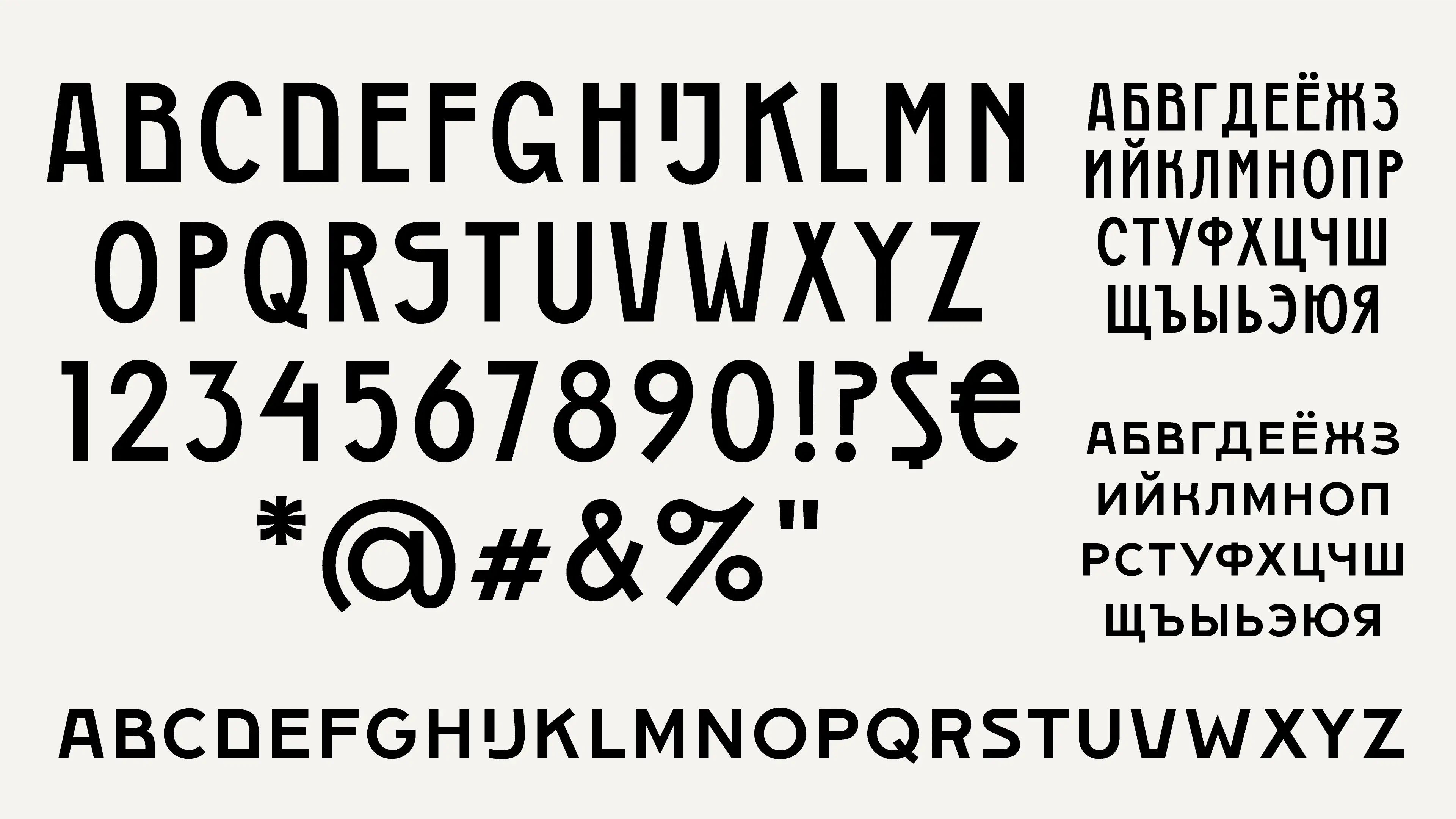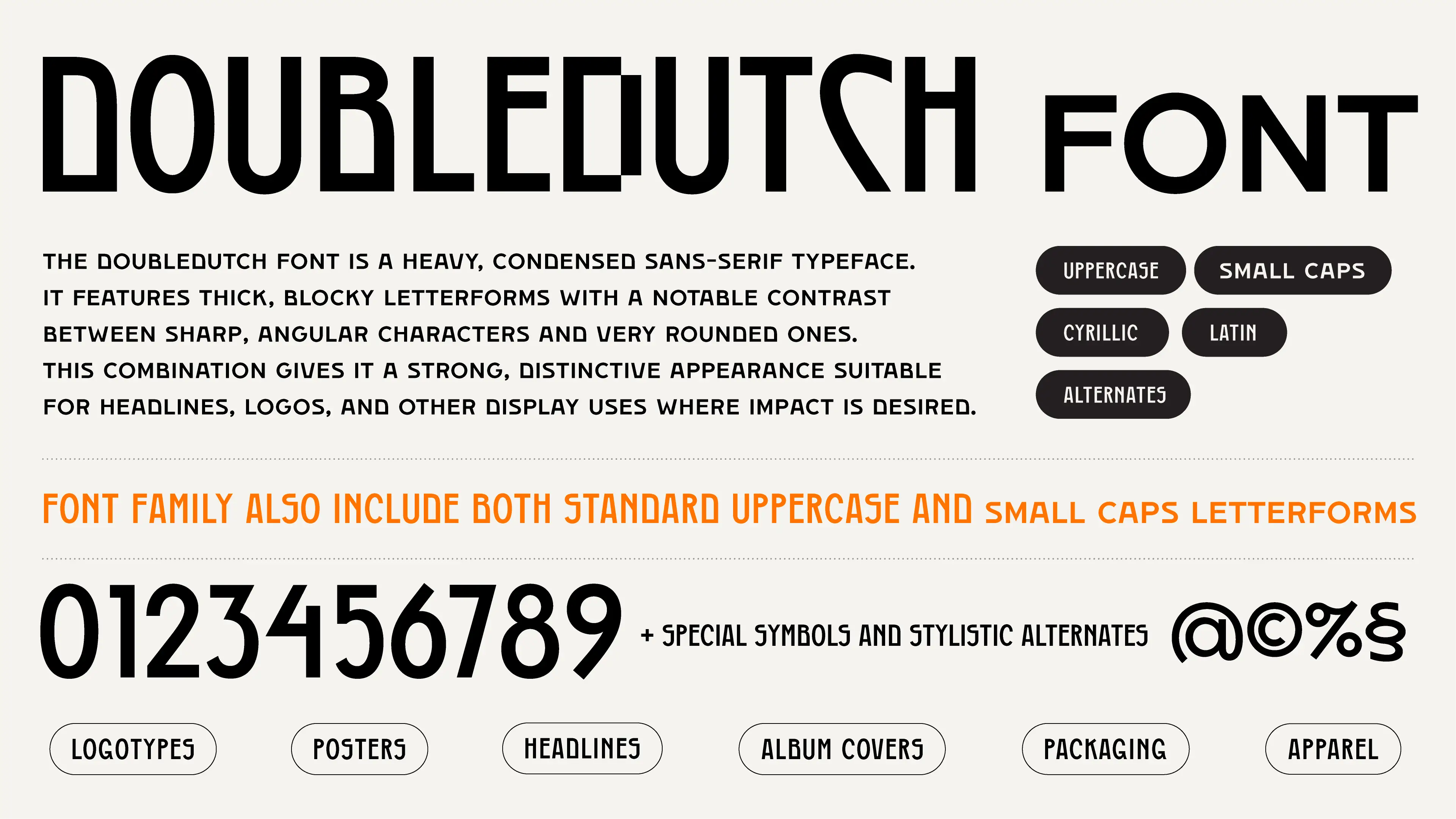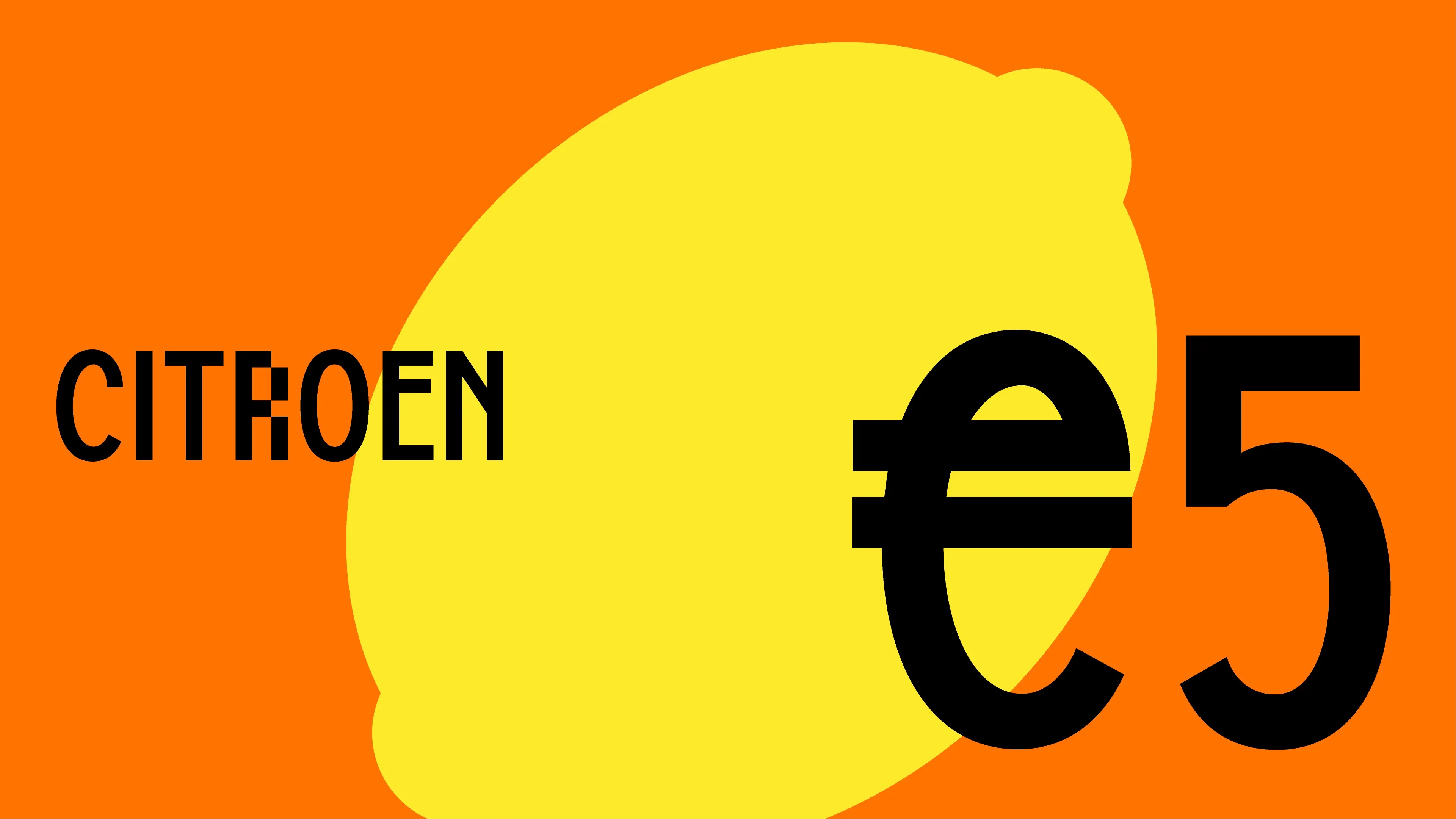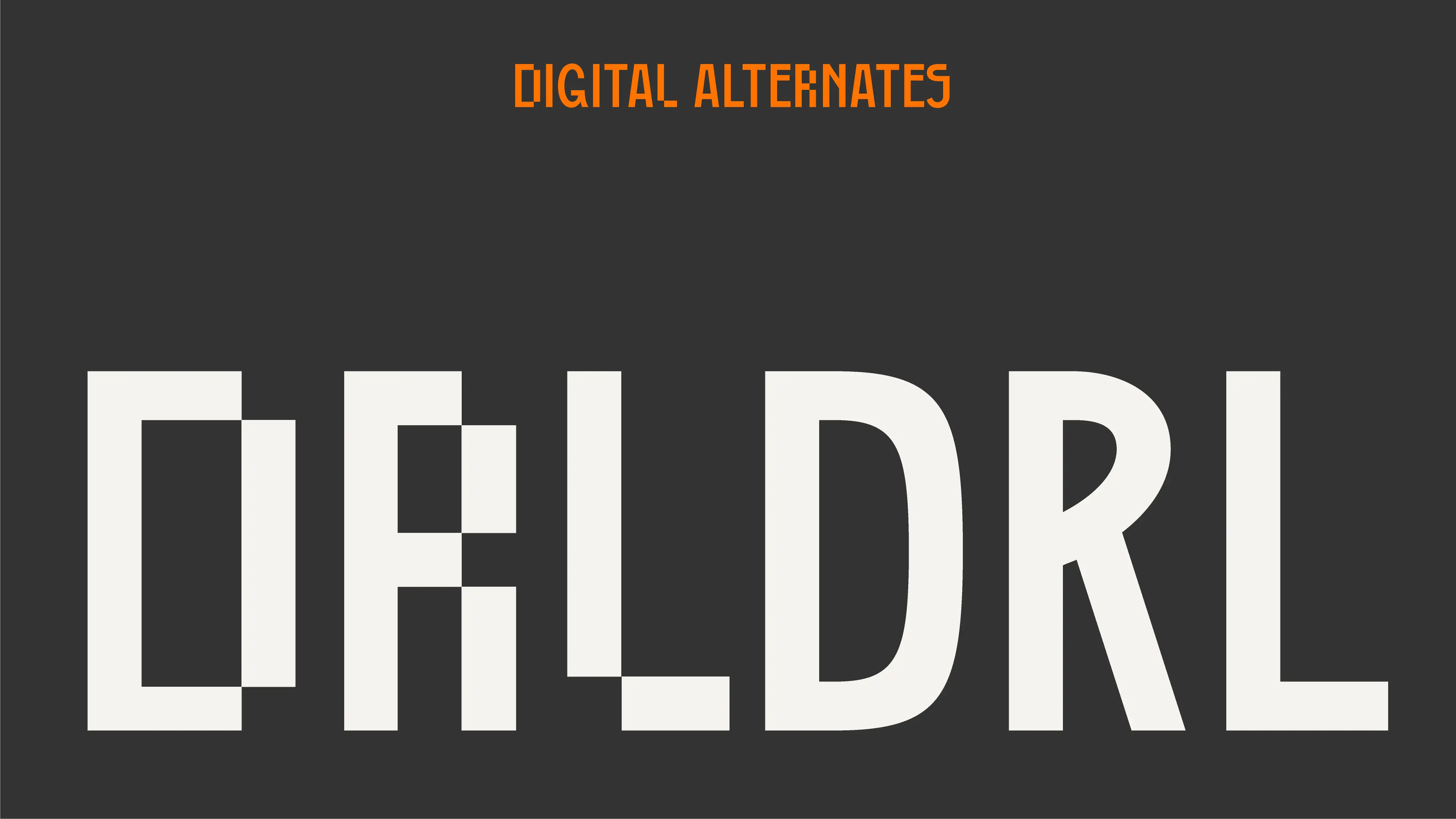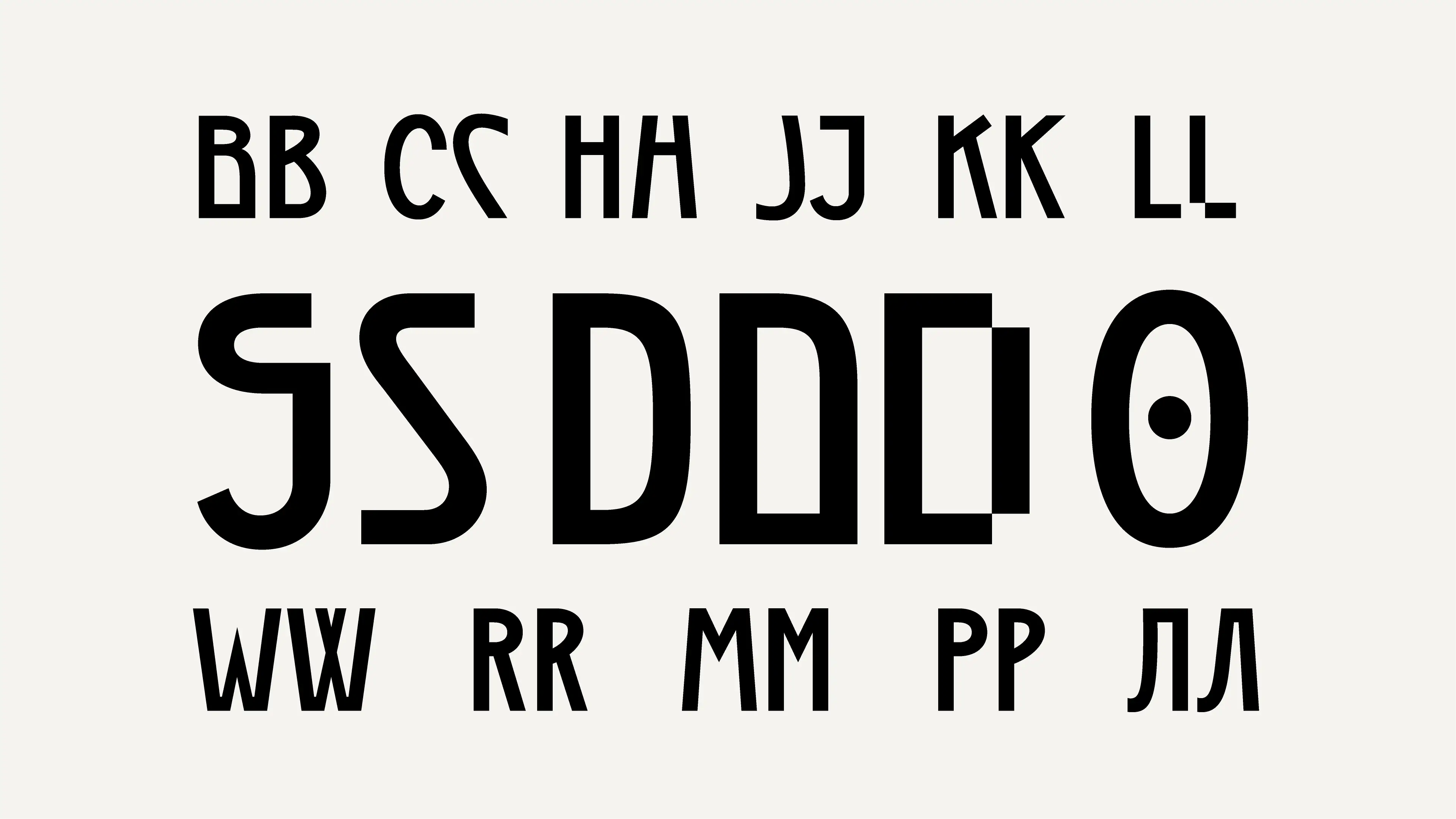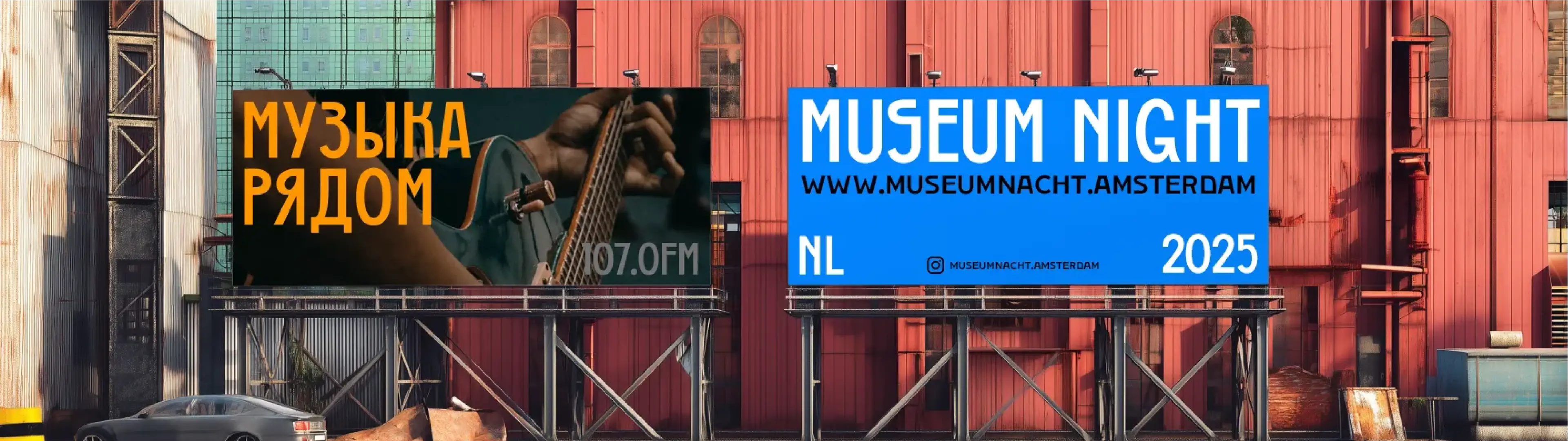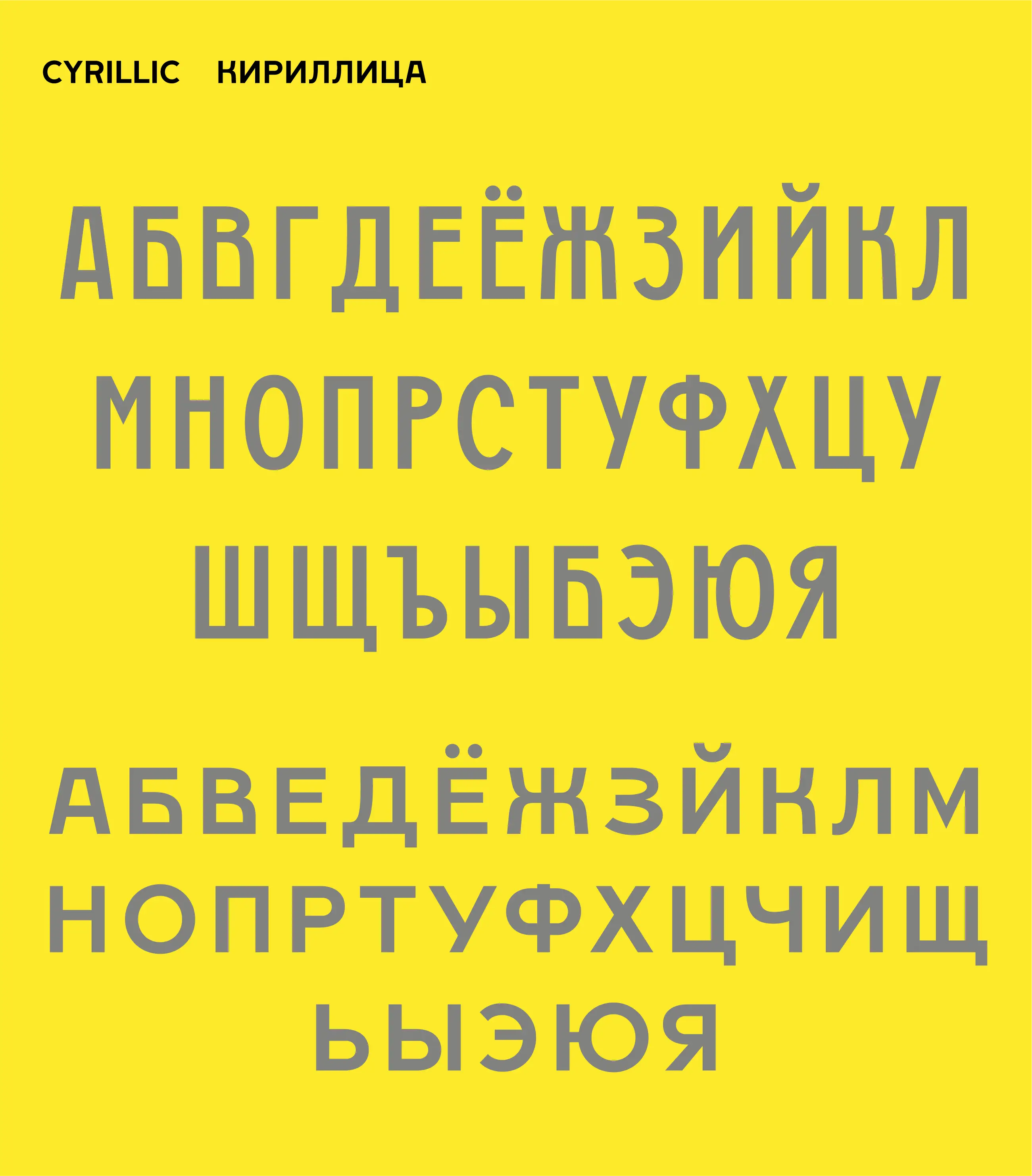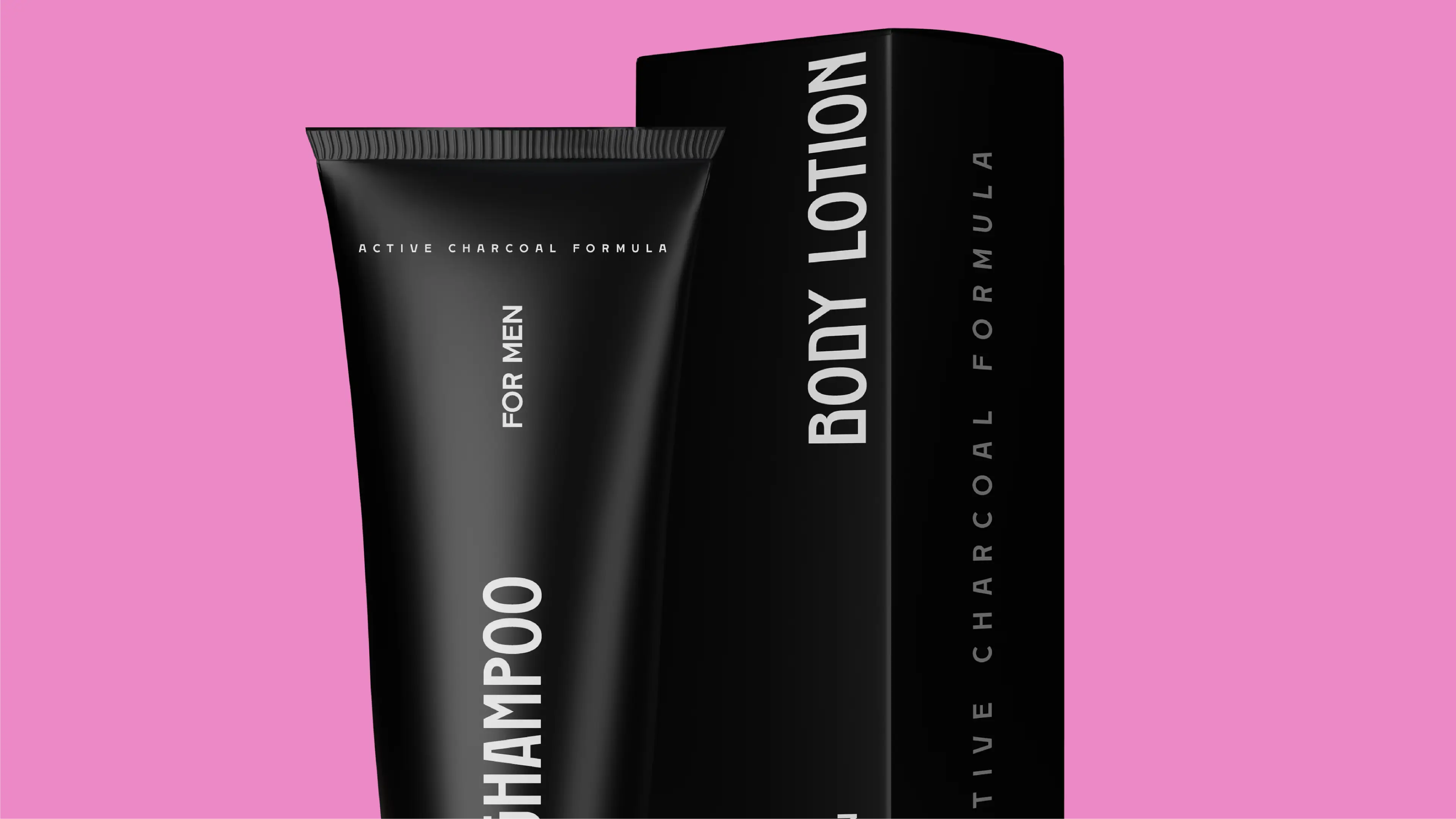
Doubledutch typeface
The Doubledutch typeface is a heavy, condensed sans-serif typeface. It features thick, blocky letterforms with a notable contrast between sharp, angular characters and very rounded ones. This combination gives it a strong, distinctive appearance suitable for headlines, logos, and other display uses where impact is desired.
Doubledutch typeface
The Doubledutch typeface is a heavy, condensed sans-serif typeface. It features thick, blocky letterforms with a notable contrast between sharp, angular characters and very rounded ones. This combination gives it a strong, distinctive appearance suitable for headlines, logos, and other display uses where impact is desired.
Given its heavy weight, condensed proportions, and distinctive mix of curves and angles, the Doubledutch Font excels in applications where high impact and strong visual presence are needed. It is particularly well-suited for large-scale use such as headlines, titles on posters and covers, striking logos, and prominent text on packaging or apparel. Its bold character ensures attention-grabbing visuals, though these same qualities make it less appropriate for body text or any situation requiring extensive reading at smaller sizes.